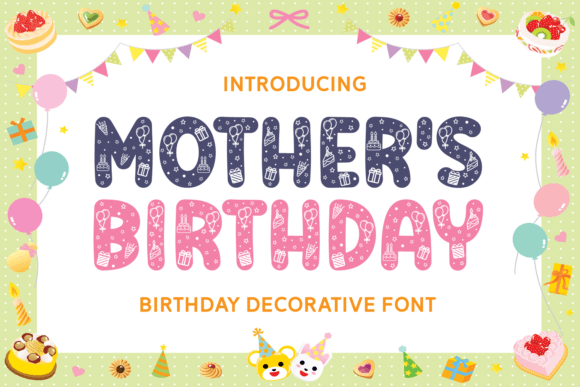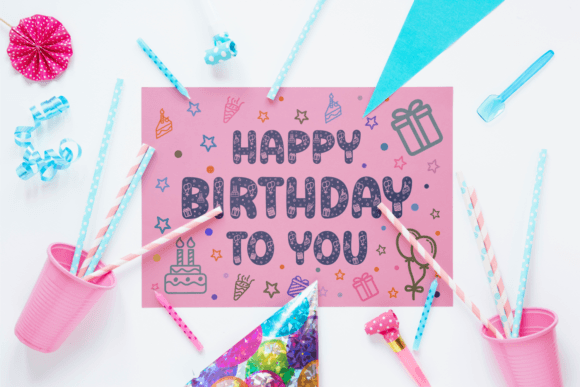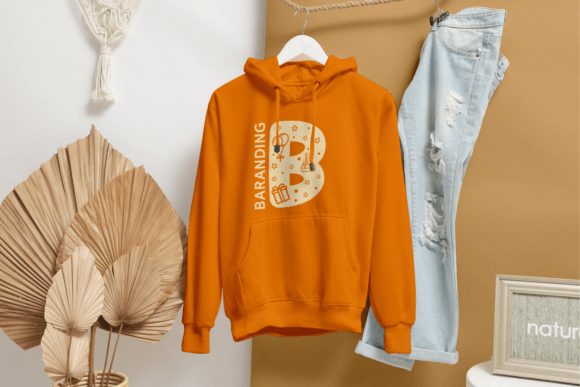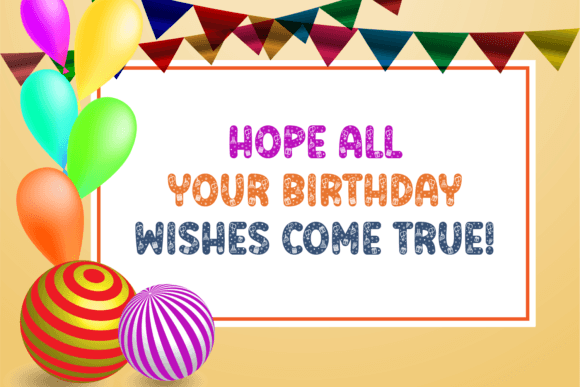
Mother’s Birthday Font
About the Mother’s Birthday Font
The wait is over! The incredible Mother’s Birthday Font is now available for your design toolkit. Celebrate joy with “Mother’s Birthday” font – a playful and festive typeface designed just for birthdays! Its decorative flair adds a touch of fun to your birthday cards, banners, and invitations. With a warm and inviting style, Mother’s Birthday font brings a cheerful vibe to any birthday celebration. Make your birthday wishes stand out with this delightful and easy-to-read font. It’s the perfect choice for adding a festive touch to your special day messages!
This font’s playful energy makes it ideal for headlines, short text blocks on invitations or greeting cards, and celebratory posters. It works exceptionally well for branding projects targeting a youthful or family-oriented demographic, particularly those emphasizing joy and warmth. However, its decorative nature makes it less suitable for body text or UI elements requiring high legibility.
For optimal visual harmony, pair “Mother’s Birthday” with a clean sans-serif font like Open Sans for body copy, providing a strong contrast and balance. Alternatively, a classic serif like Garamond could add a touch of sophistication, grounding the playful energy of the main font.
The overall personality is best described as cheerful and celebratory, possessing a friendly and approachable, yet slightly whimsical, aesthetic. Avoid using it for projects requiring a serious or professional tone.
Mother’s Birthday Font Usage Examples
Mother's Birthday Font Example